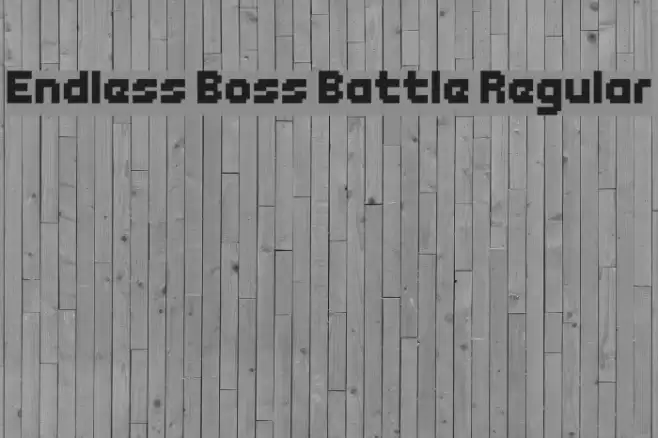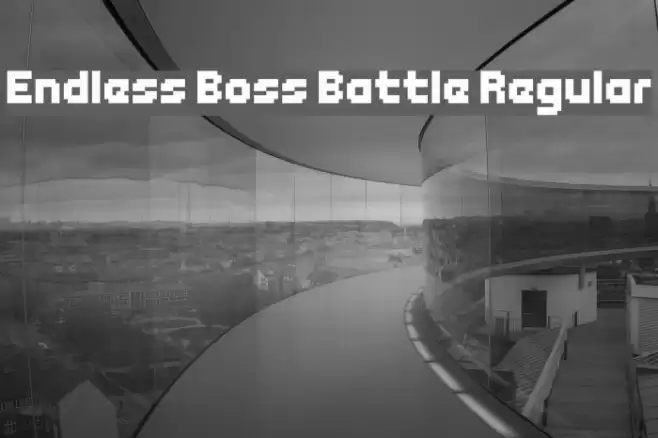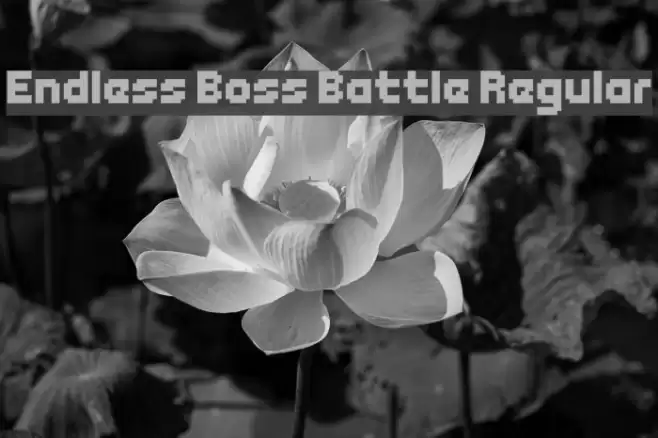
Endless Boss Battle Regular Font
Endless Boss Battle Regular Description
This font features a bold, pixelated style reminiscent of classic video game graphics. Each character is constructed with a blocky, grid-like appearance, giving it a retro and digital aesthetic. The uppercase and lowercase letters maintain a consistent height, contributing to a uniform look. Numbers and special characters follow the same pixelated design, ensuring visual coherence across all glyphs. The font's geometric structure and sharp edges make it highly legible, even at smaller sizes, while its unique style adds a playful and nostalgic touch.
A bold, pixelated font with a retro video game aesthetic from Uncategorized fonts.
- Overall Style: Retro, Digital